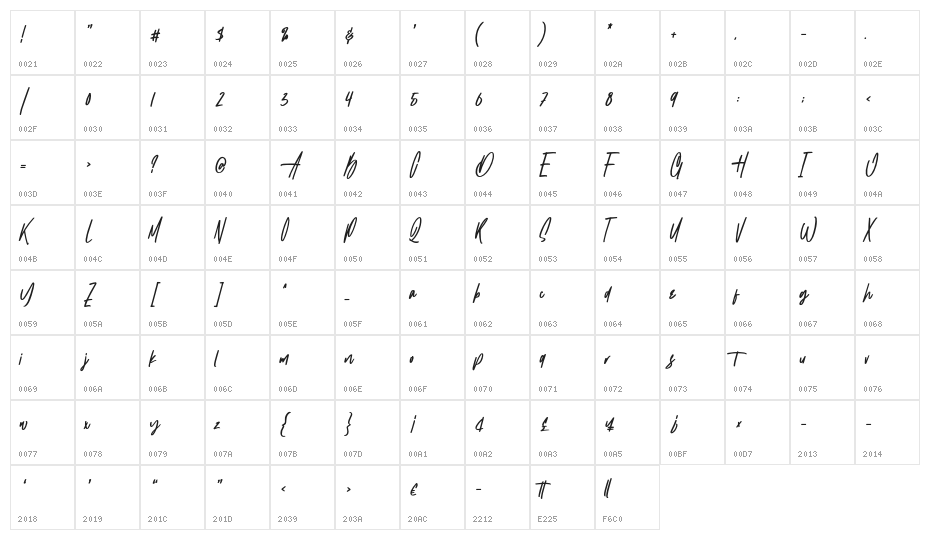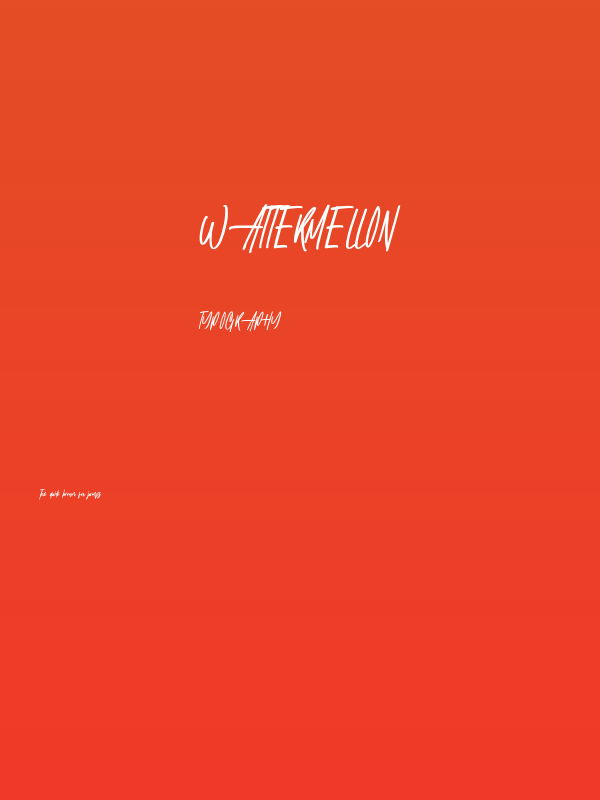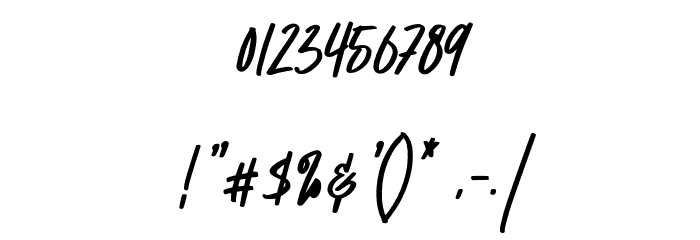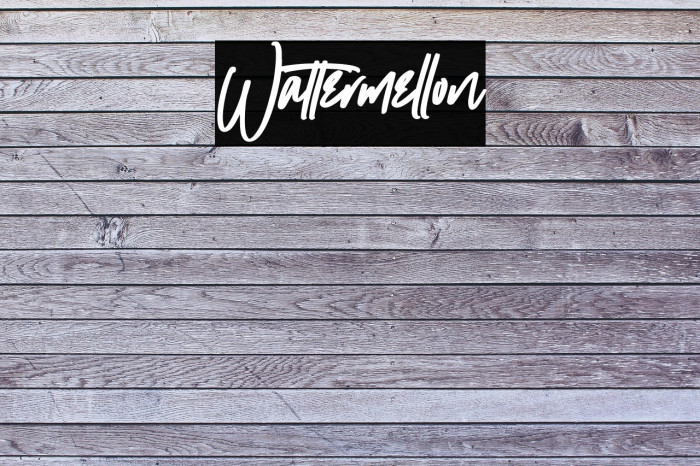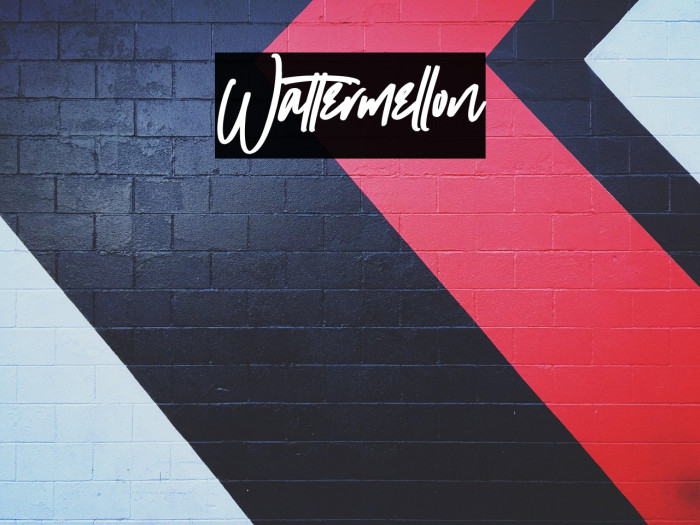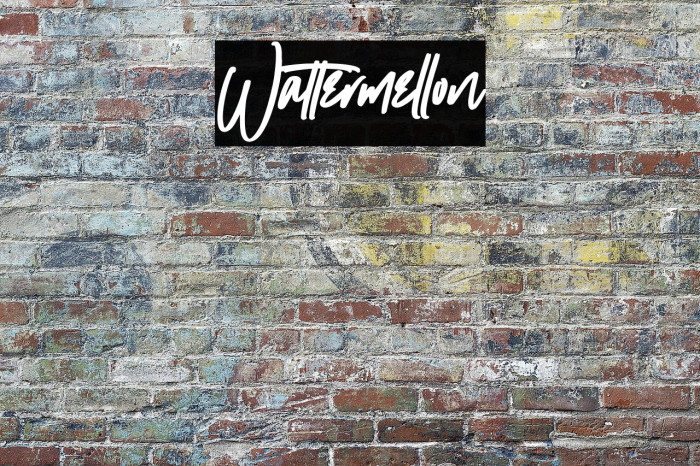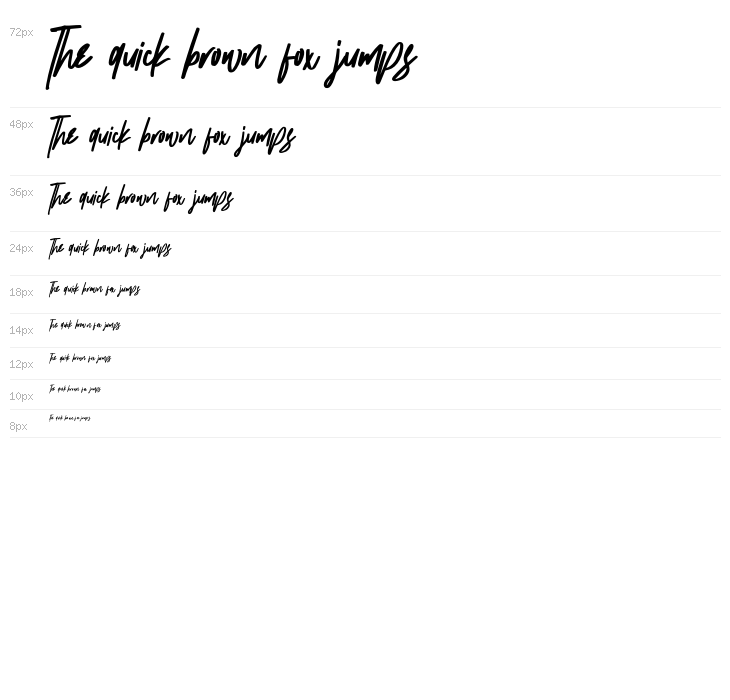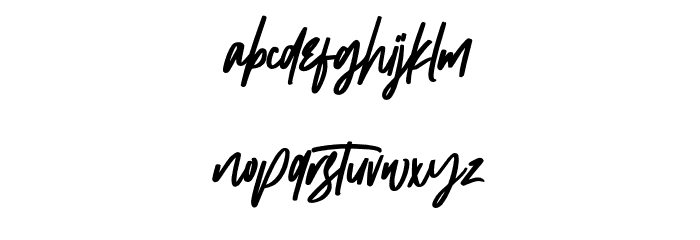
Wattermellon Font
Wattermellon Description
This font features a dynamic and energetic script style, characterized by its fluid and flowing letterforms. The strokes are bold and slightly irregular, giving it a hand-drawn appearance that adds a personal touch. The uppercase letters are tall and slightly slanted, while the lowercase letters maintain a consistent flow, enhancing readability. The numerals and special characters are designed to match the overall aesthetic, ensuring a cohesive look. This font is perfect for projects that require a lively and informal vibe.